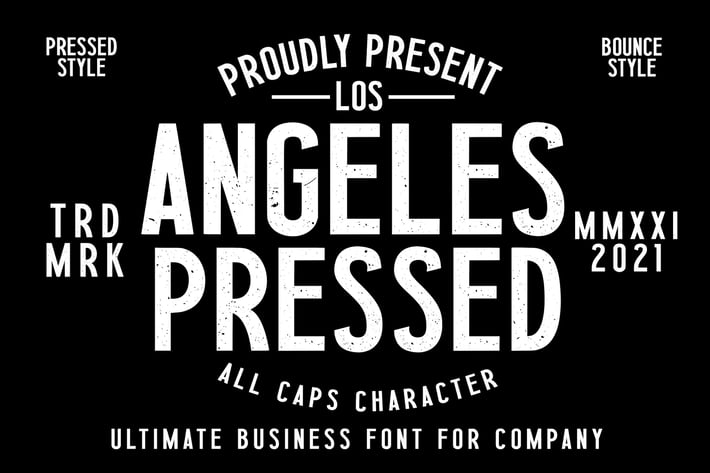
Los Angeles Press Business and Magazine Font
Los Angeles Press is a great sans serif font that will complement all your designs! It has extended characters that will look particularly adept when used in logos, branding, packaging design, and much more. This masterfully designed typeface is a true must-have.